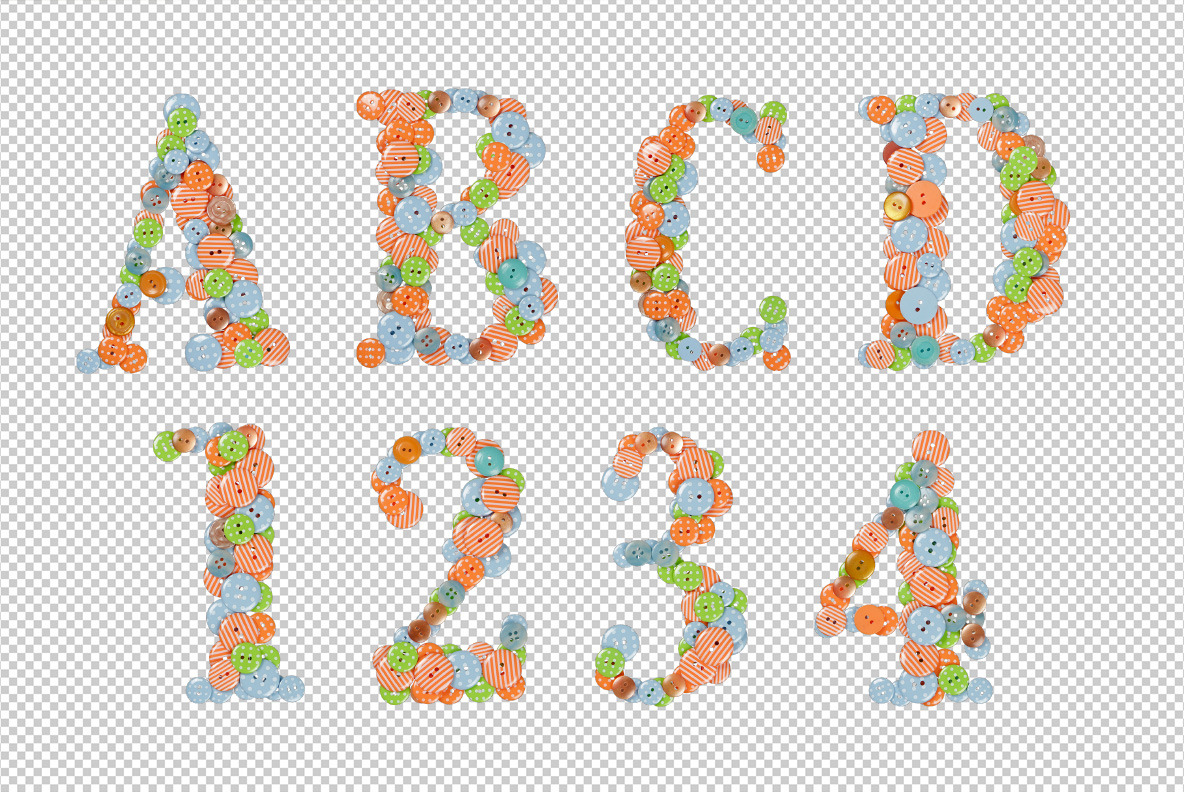
Best Font Family For Buttons . Seems a good choice, even on a site that is using a serif font for body text. When choosing the right font for buttons, there are a few key factors to consider. Your font should be clear and easily read, even in. The choice of font can significantly impact the effectiveness of a button. Explore buttons fonts at myfonts. Unleash your design potential today! Here's our pick for the best quality free fonts for modern ui design. Discover a world of captivating typography for your creative projects. The typography system is one of the most foundational parts of. First and foremost, readability is crucial. You only want legibility, not readability on a button.
Explore buttons fonts at myfonts. Here's our pick for the best quality free fonts for modern ui design. Discover a world of captivating typography for your creative projects. You only want legibility, not readability on a button. Seems a good choice, even on a site that is using a serif font for body text. The typography system is one of the most foundational parts of. First and foremost, readability is crucial. When choosing the right font for buttons, there are a few key factors to consider. Your font should be clear and easily read, even in. Unleash your design potential today!
Best Font Family For Buttons The choice of font can significantly impact the effectiveness of a button. Discover a world of captivating typography for your creative projects. When choosing the right font for buttons, there are a few key factors to consider. You only want legibility, not readability on a button. First and foremost, readability is crucial. Unleash your design potential today! Seems a good choice, even on a site that is using a serif font for body text. Explore buttons fonts at myfonts. The choice of font can significantly impact the effectiveness of a button. Here's our pick for the best quality free fonts for modern ui design. Your font should be clear and easily read, even in. The typography system is one of the most foundational parts of.